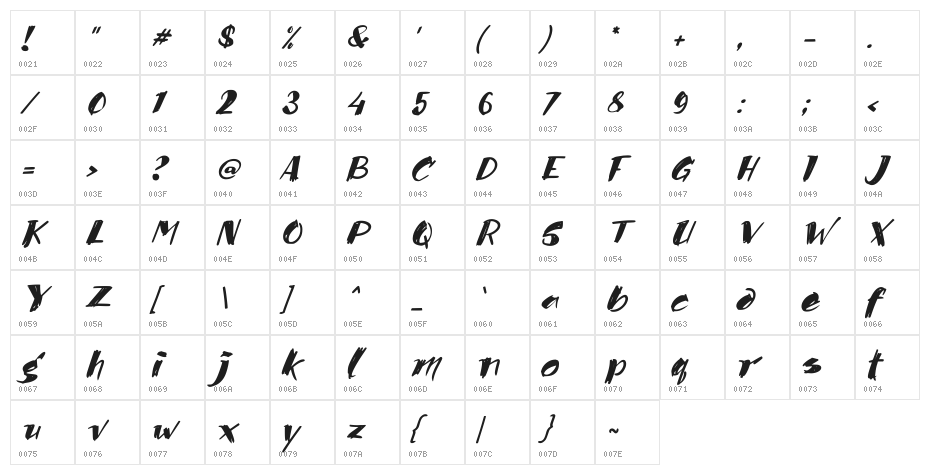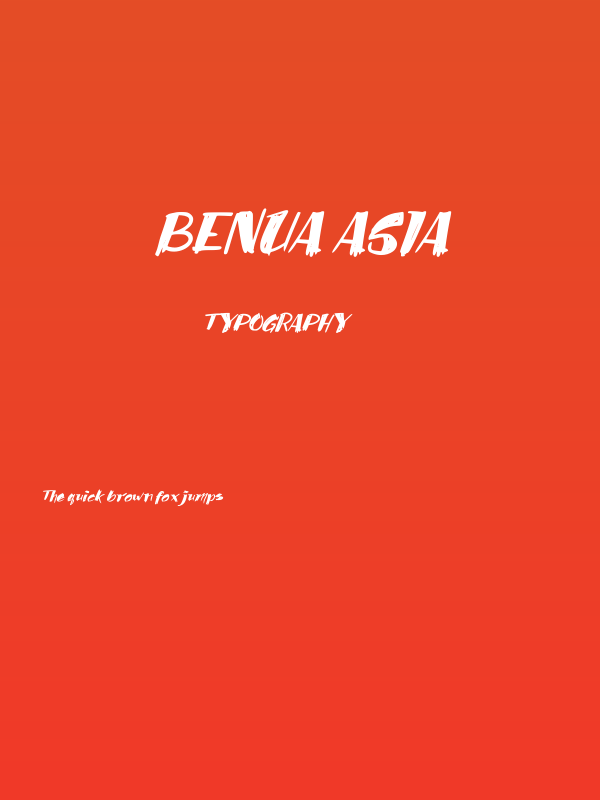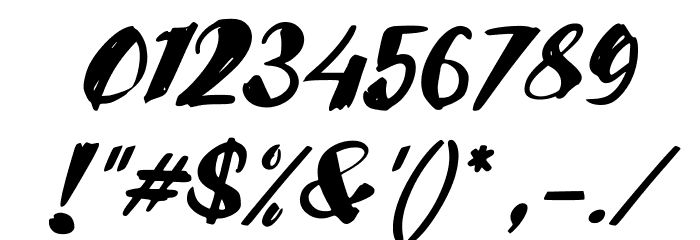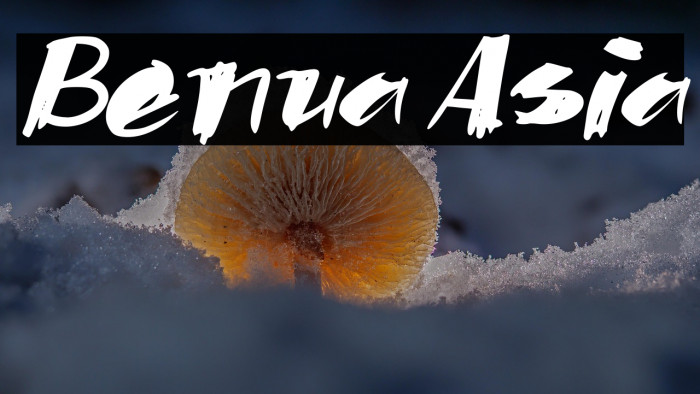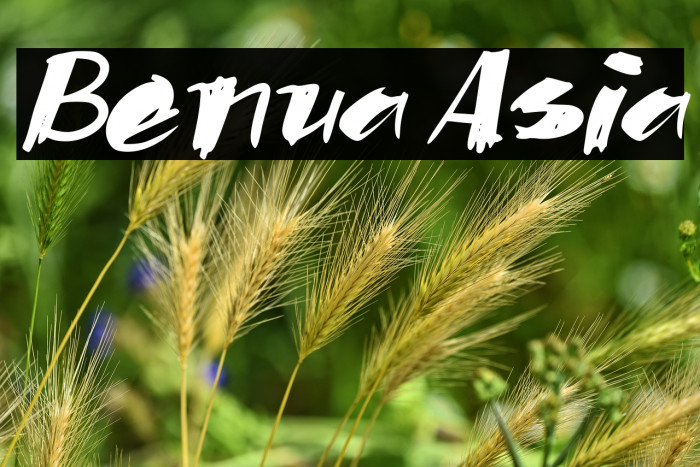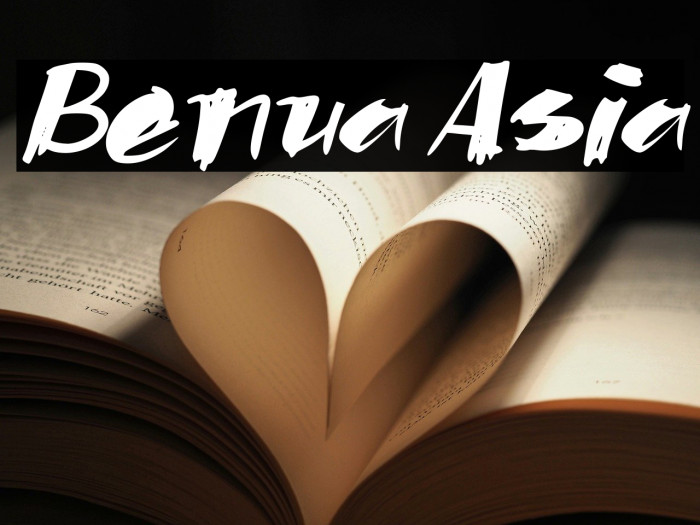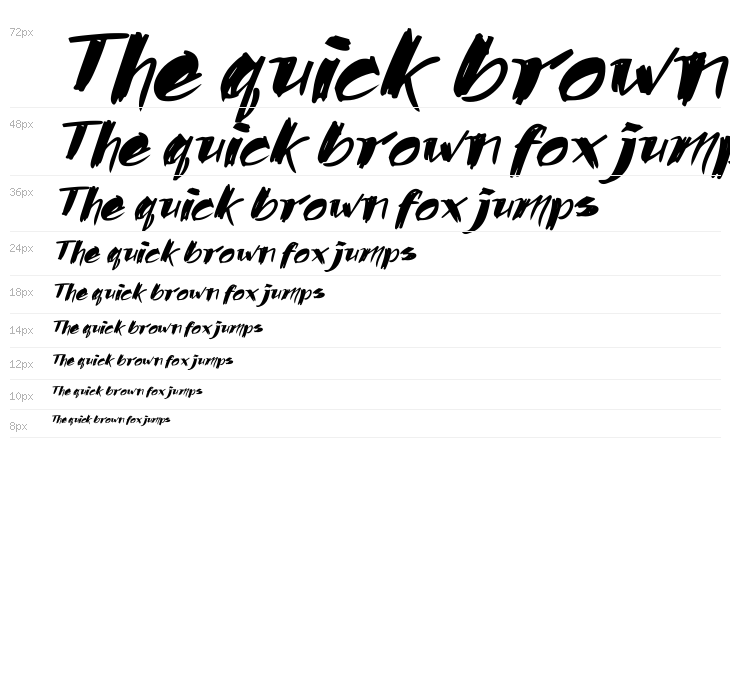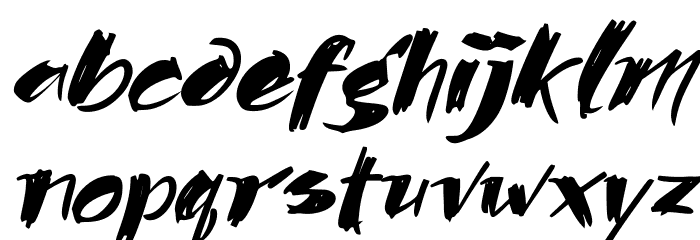
Benua Asia Font
Benua Asia Description
This font exhibits a bold and dynamic brush script style, characterized by its energetic and fluid strokes. The uppercase letters are bold and slightly slanted, giving a sense of movement and urgency. The lowercase letters maintain the same energetic style, with some letters featuring distinctive loops and curves that add to the overall dynamic appearance. The numbers and special characters are consistent with the alphabet, maintaining the bold and expressive style. This font is ideal for projects that require a strong visual impact and a sense of creativity.
| Proposed Projects | This font is perfect for creative projects such as posters, branding, packaging, and event invitations where a strong and artistic impression is desired. |